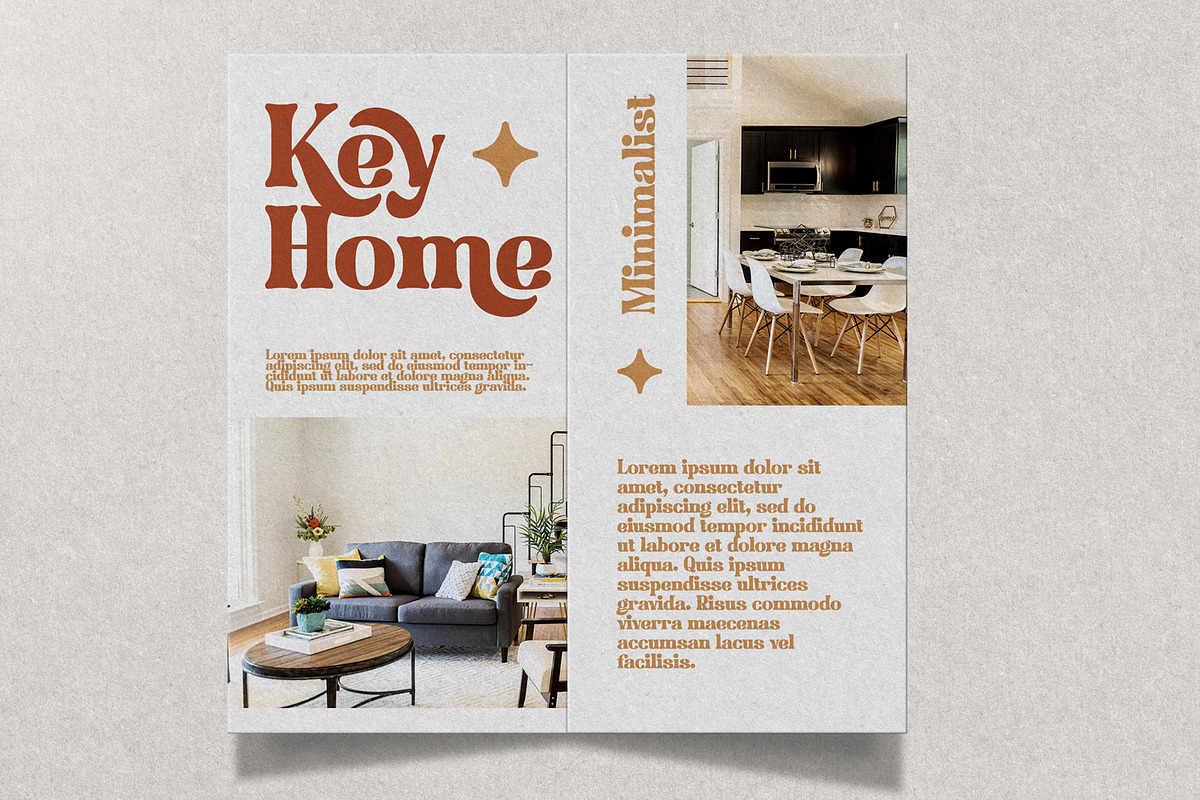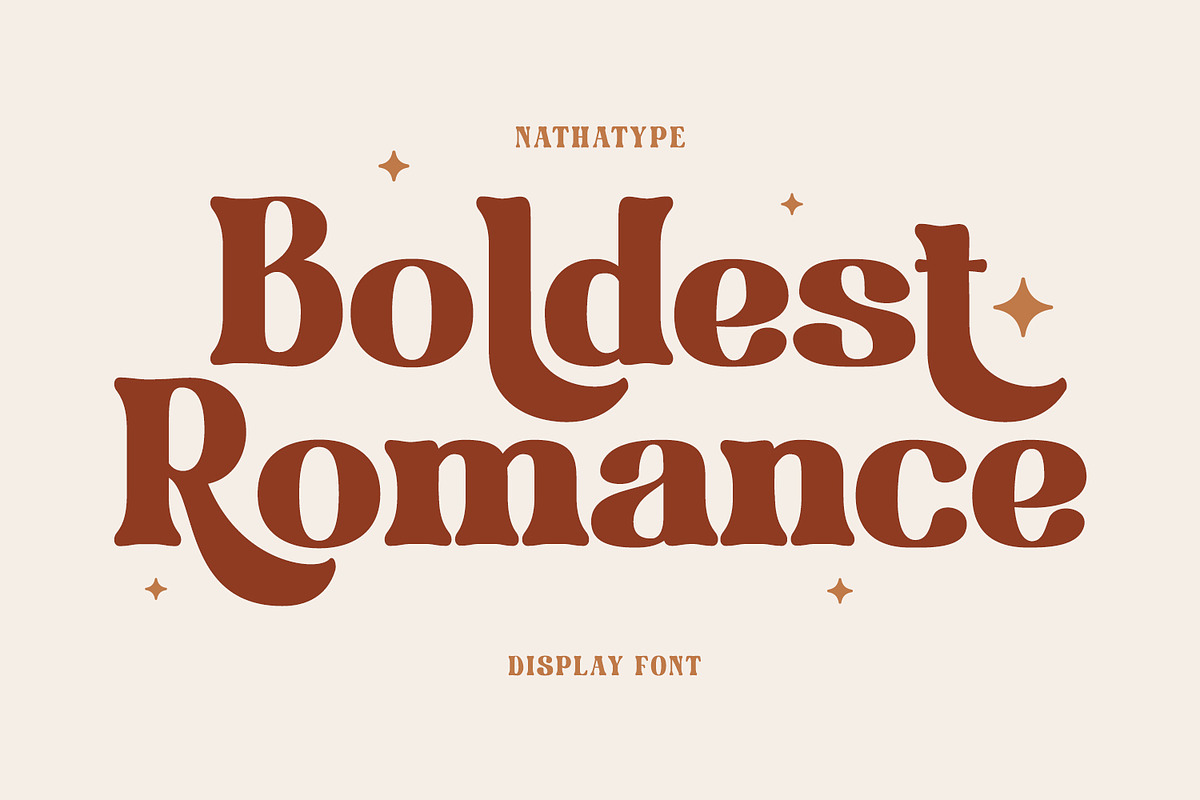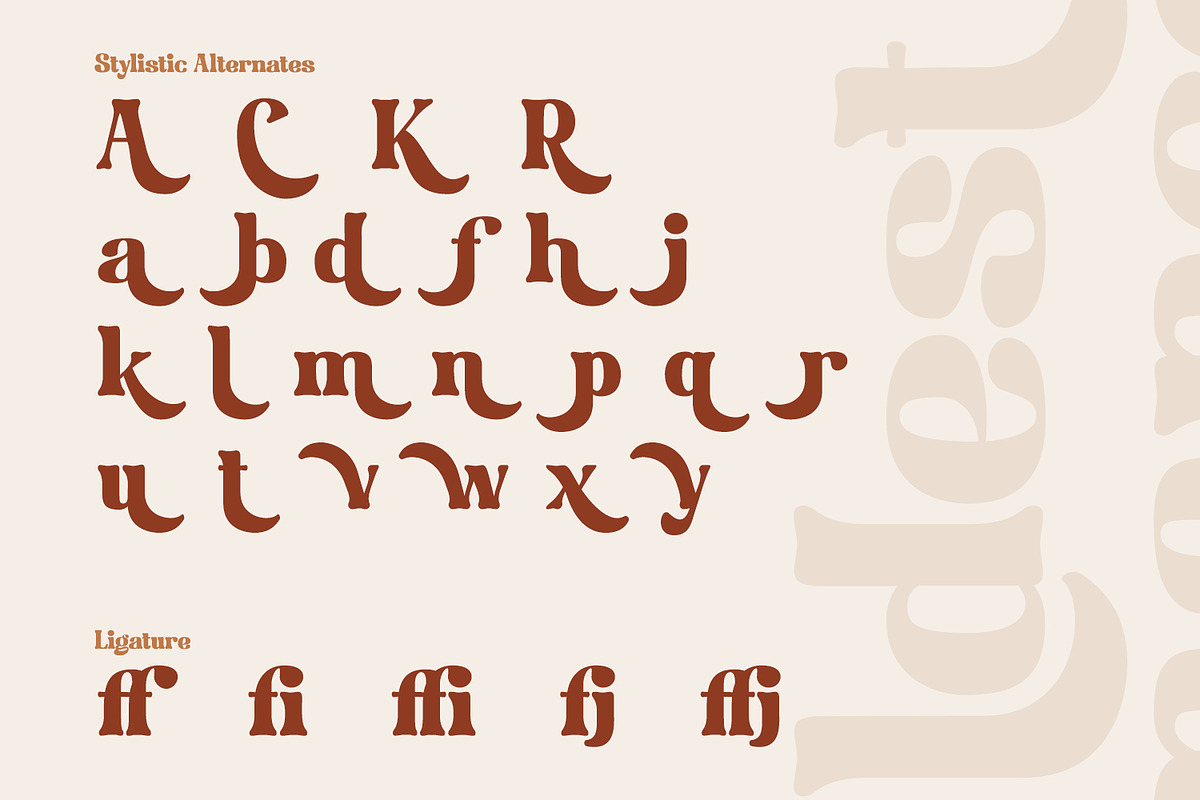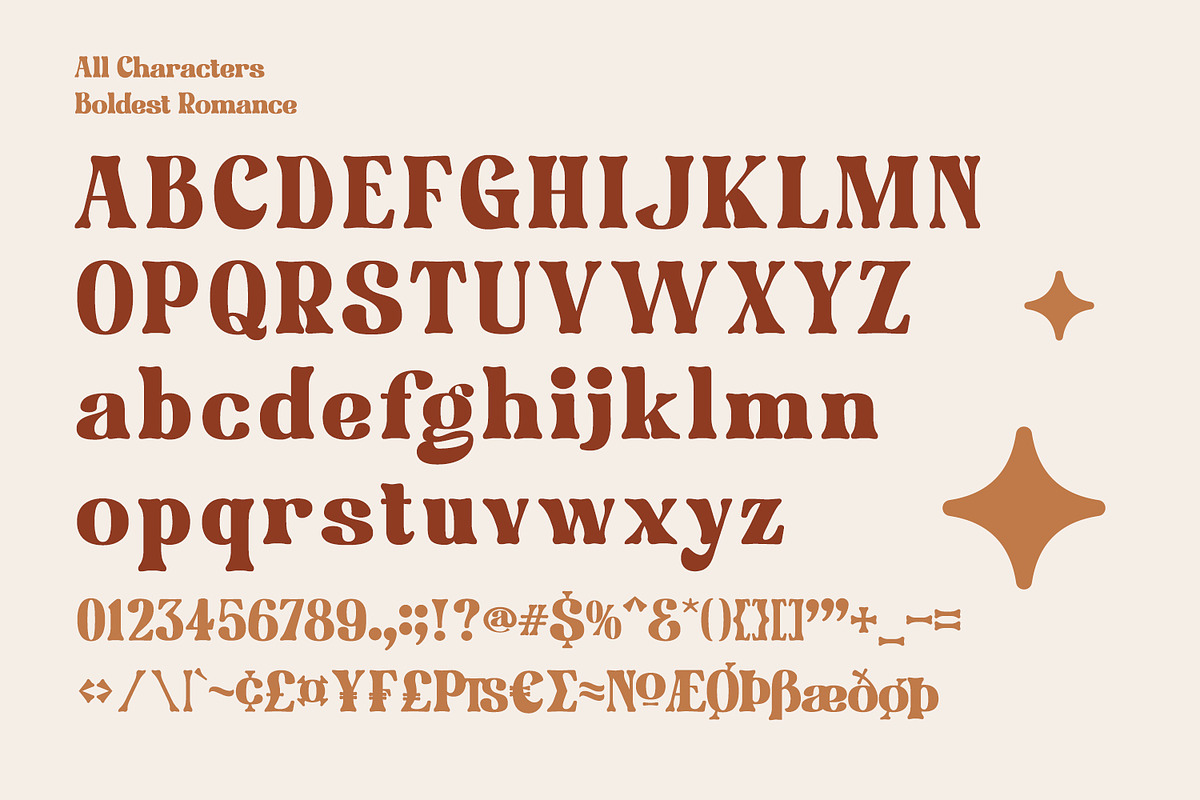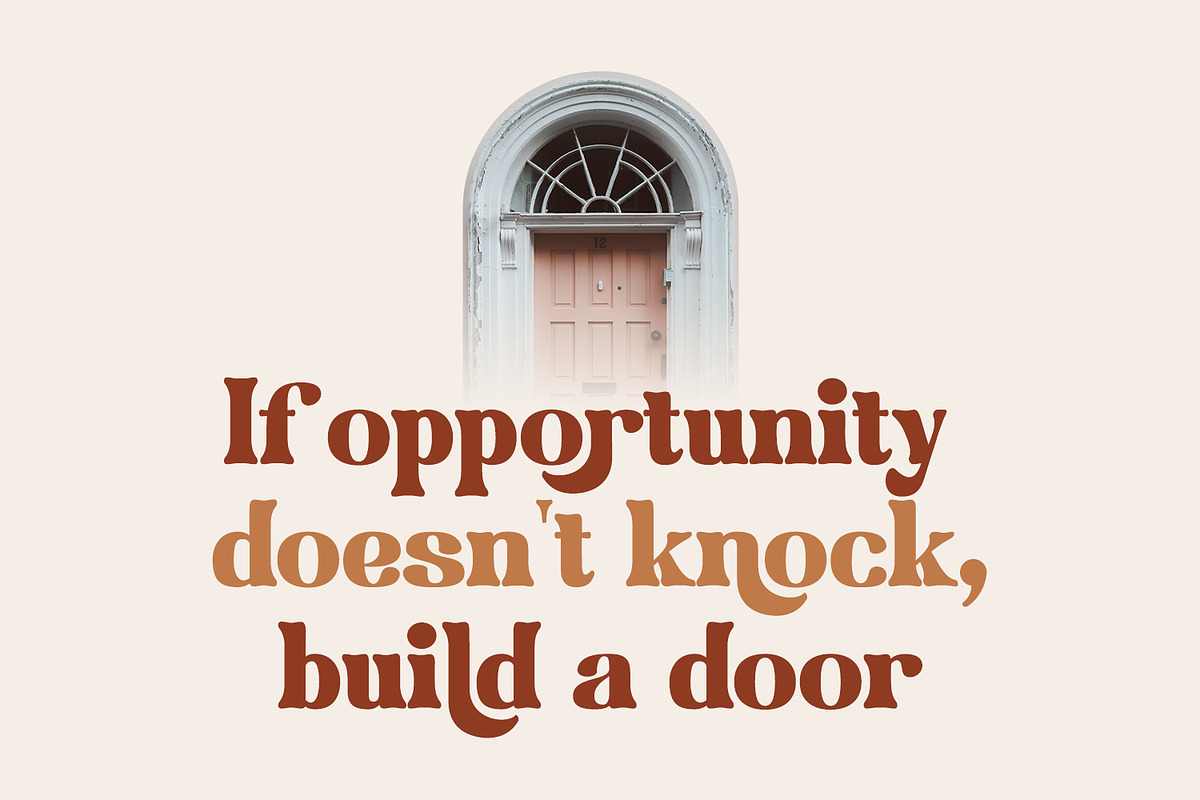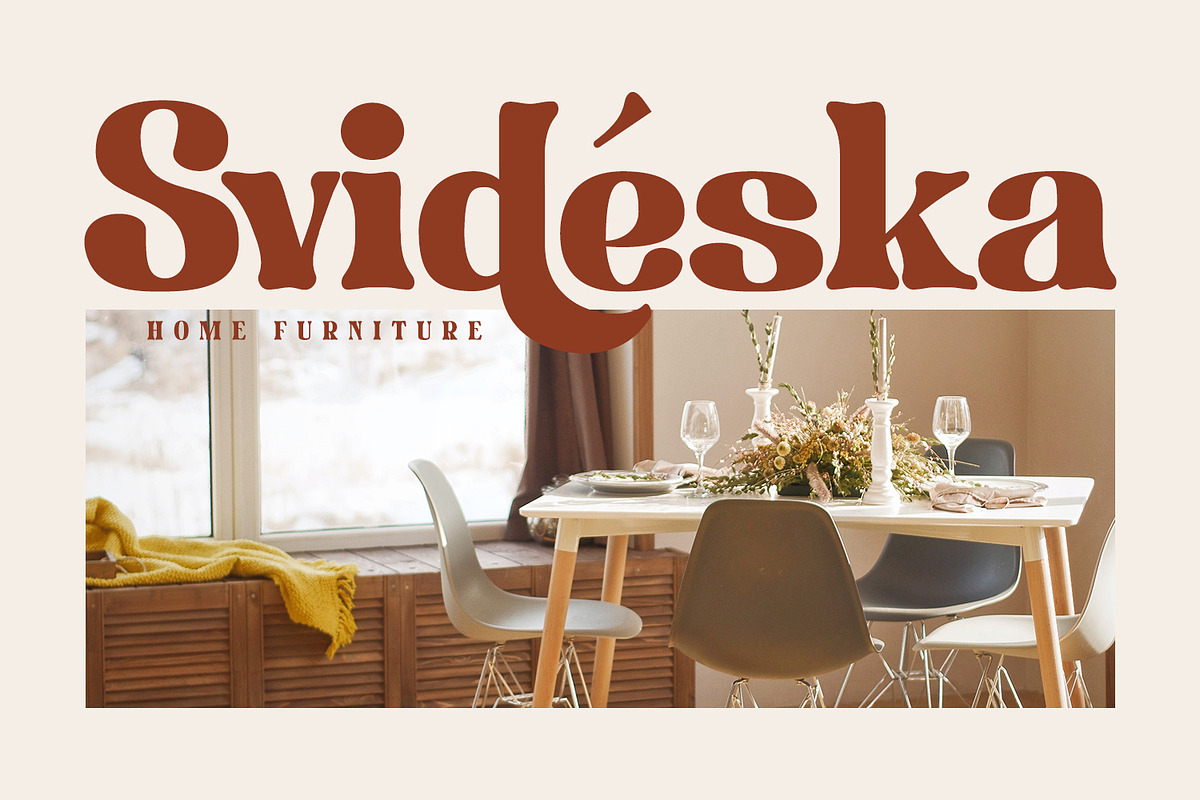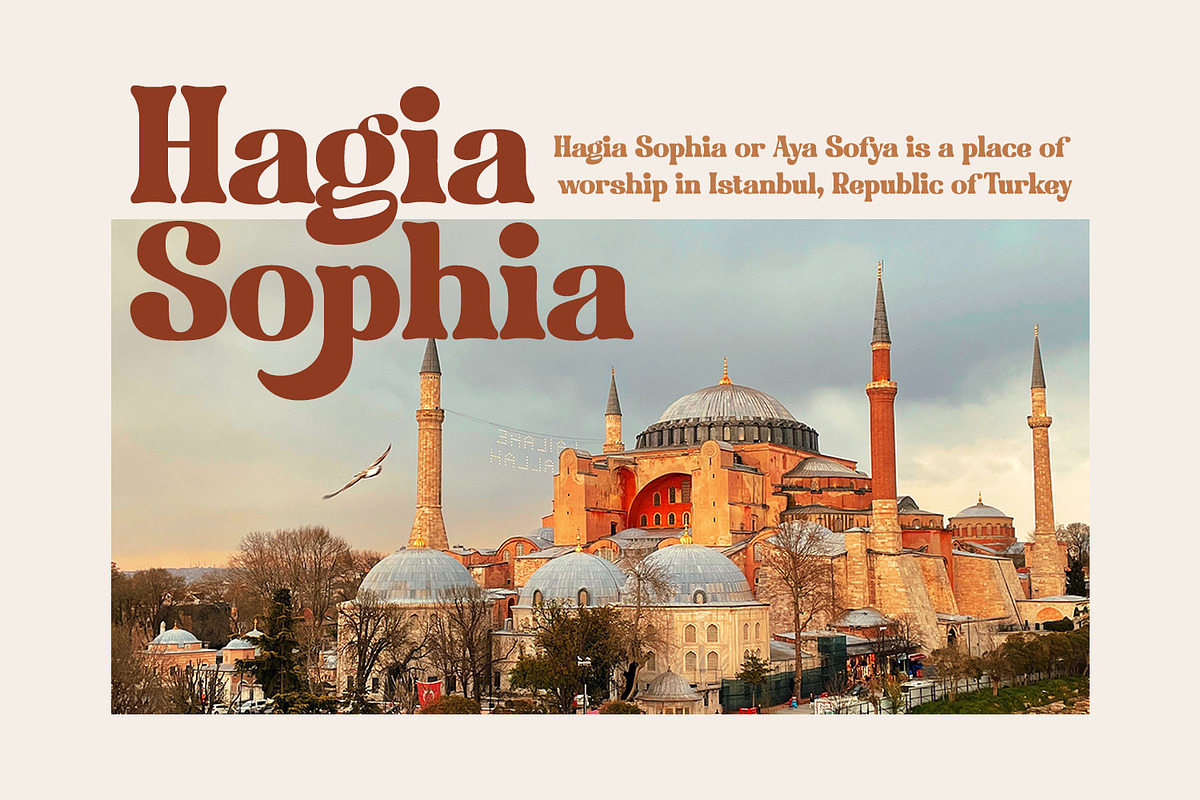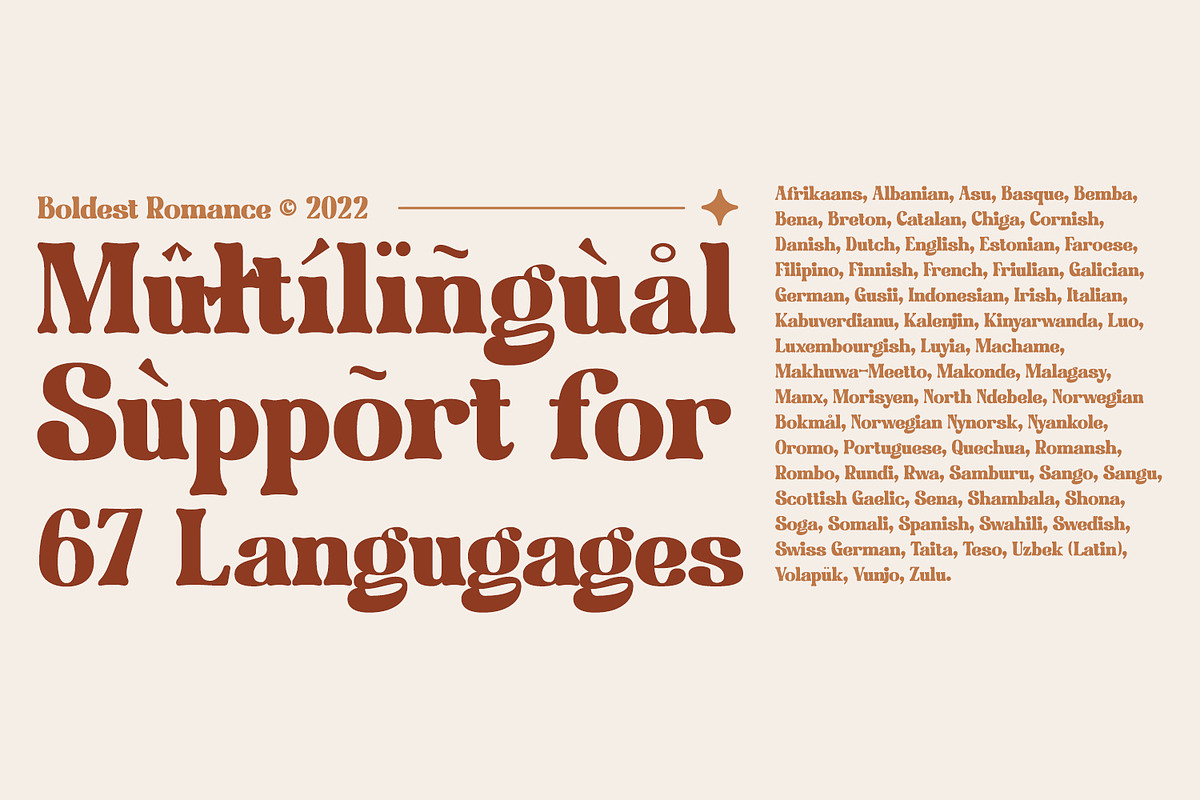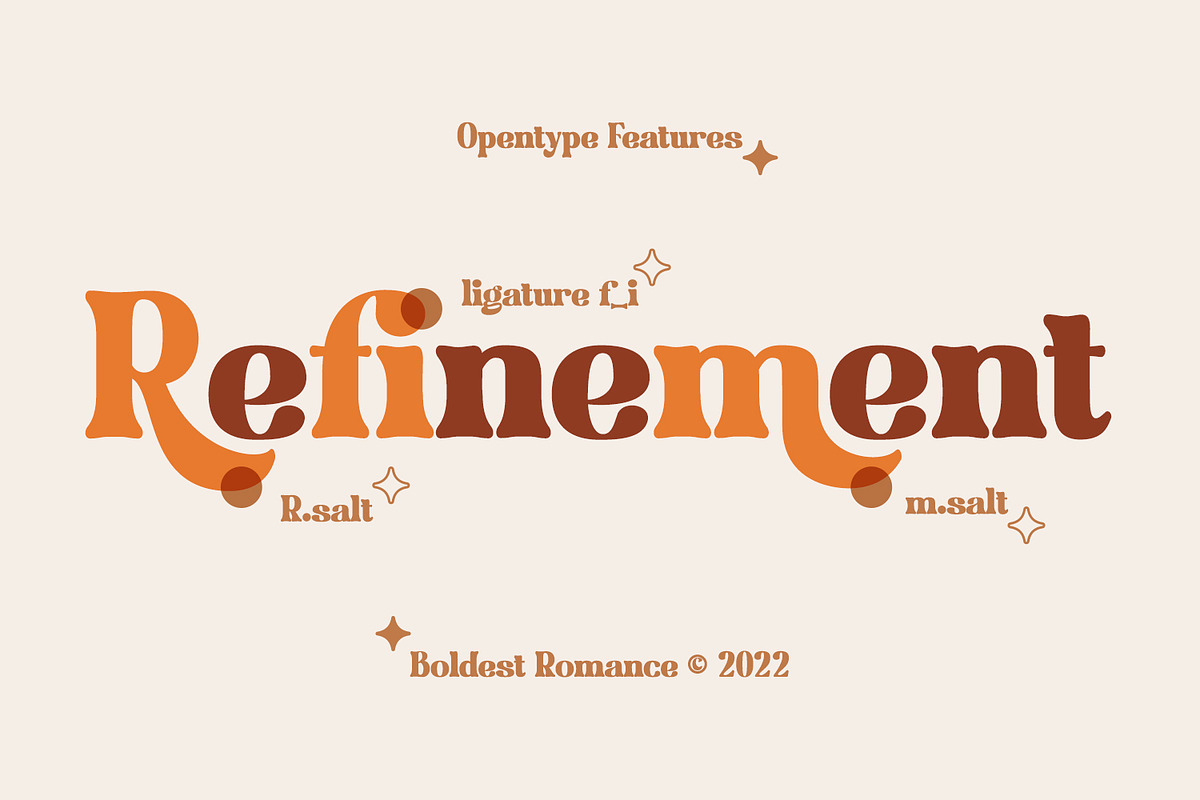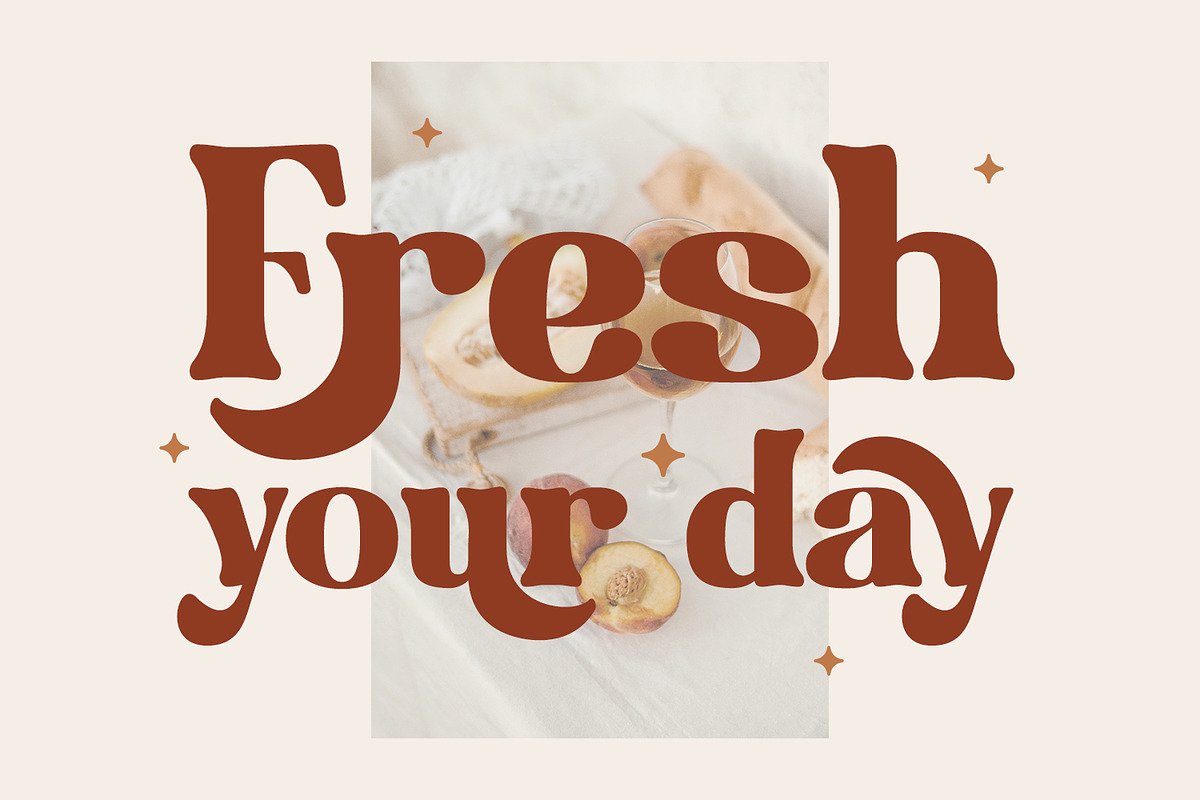
Boldest Romance
If you are looking for an aesthetically fun, legible font, Boldest Romance is the perfect choice. It is a thickly designed weight display font to be legible and beautiful at the same time. This is perfect to apply for serious, formal contents as it gives a strong impression. Furthermore, this legible font has regular structures easing readers to recognize every letter correctly. You can also enjoy interesting features available here.
Boldest Romance fits best for various design projects, such as brandings, posters, banners, logos, magazine covers, quotes, headings, printed products, greeting cards, merchandise, social media, etc. Find out more ways to use this font by taking a look at the font preview.